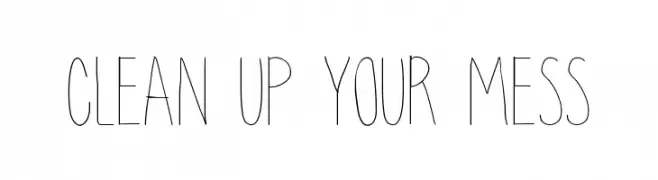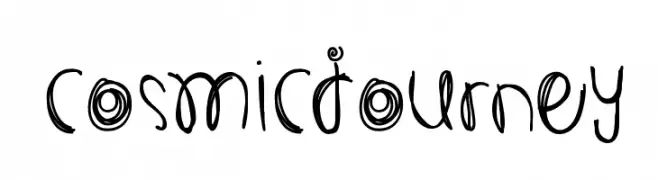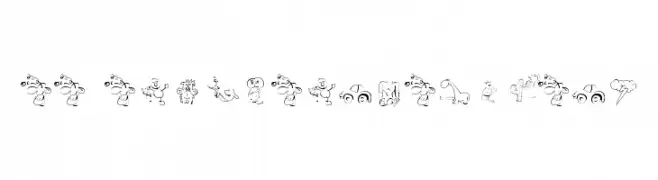
A playful, handwritten font with tall, narrow letters and thin strokes.
A decorative, cartoonish doodle font with unique illustrations for each character.
A playful, hand-drawn font with a whimsical and energetic style.
A whimsical and playful font with bold and thin strokes, perfect for festive designs.
A bold, gothic blackletter font with ornate detailing and sharp angles.
A whimsical, decorative font inspired by vintage circus posters.
A classic serif typeface with a modern touch and semi-bold weight.
A digital-style font with segmented lines, ideal for tech-themed designs.